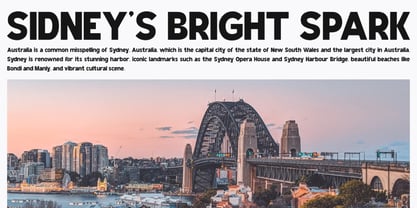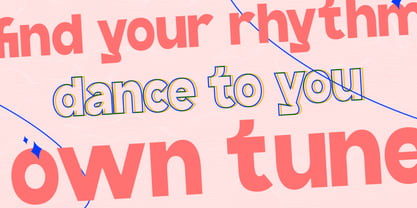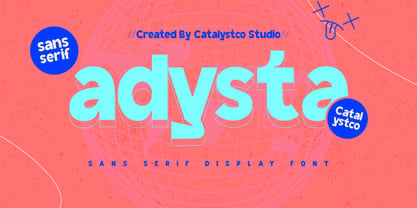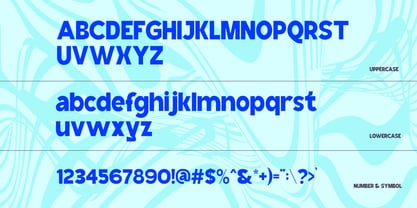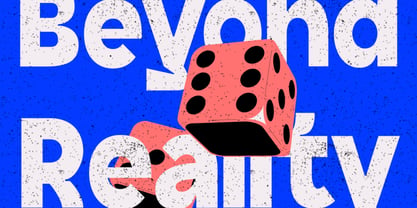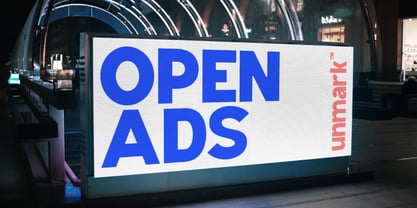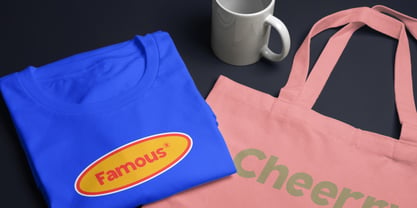
Adysta
Adysta is a playful sans serif display font designed with bold curves and vibrant energy. Crafted by Catalystco Studio, it features a clean yet quirky character that makes it ideal for cheerful branding, youth-centered projects, and creative design work. Adysta is perfect for designs that need a youthful, fun, and dynamic vibe. It's ideal for kids-related branding, playful social media templates, colorful posters, entertainment flyers, creative merchandise, and quirky editorial layouts.